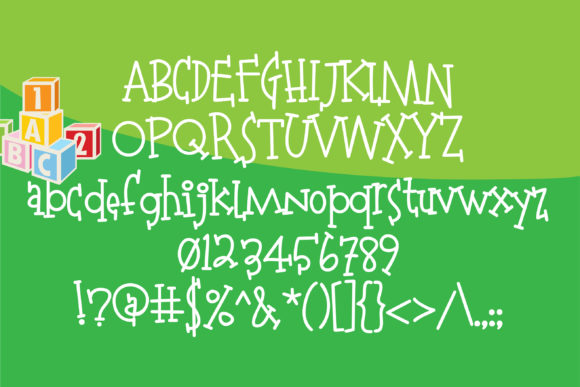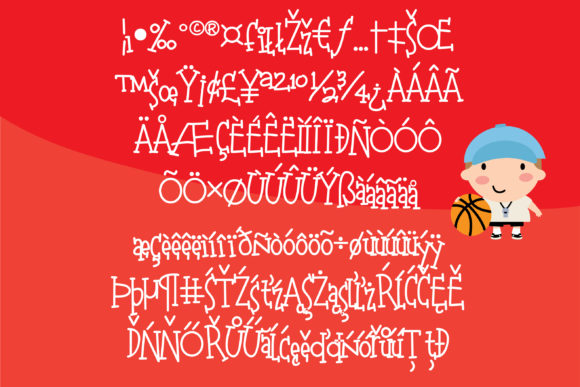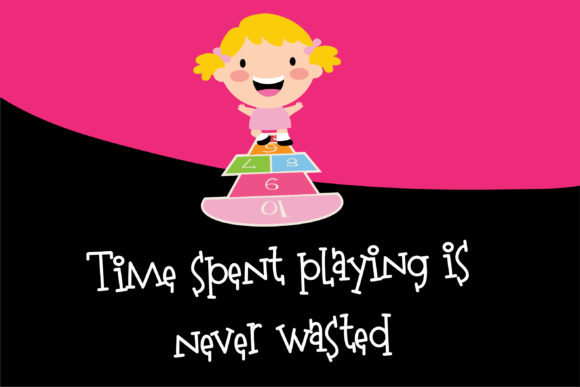
Introduction to Playgroup Font
This youthful serif font is whimsical and fun, making it an ideal crafting font.
This youthful serif font is whimsical and fun, making it an ideal crafting font!
Key Features of Playgroup Font
Why Choose Playgroup Font?